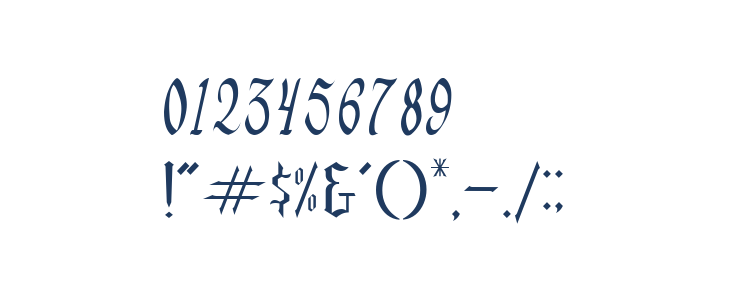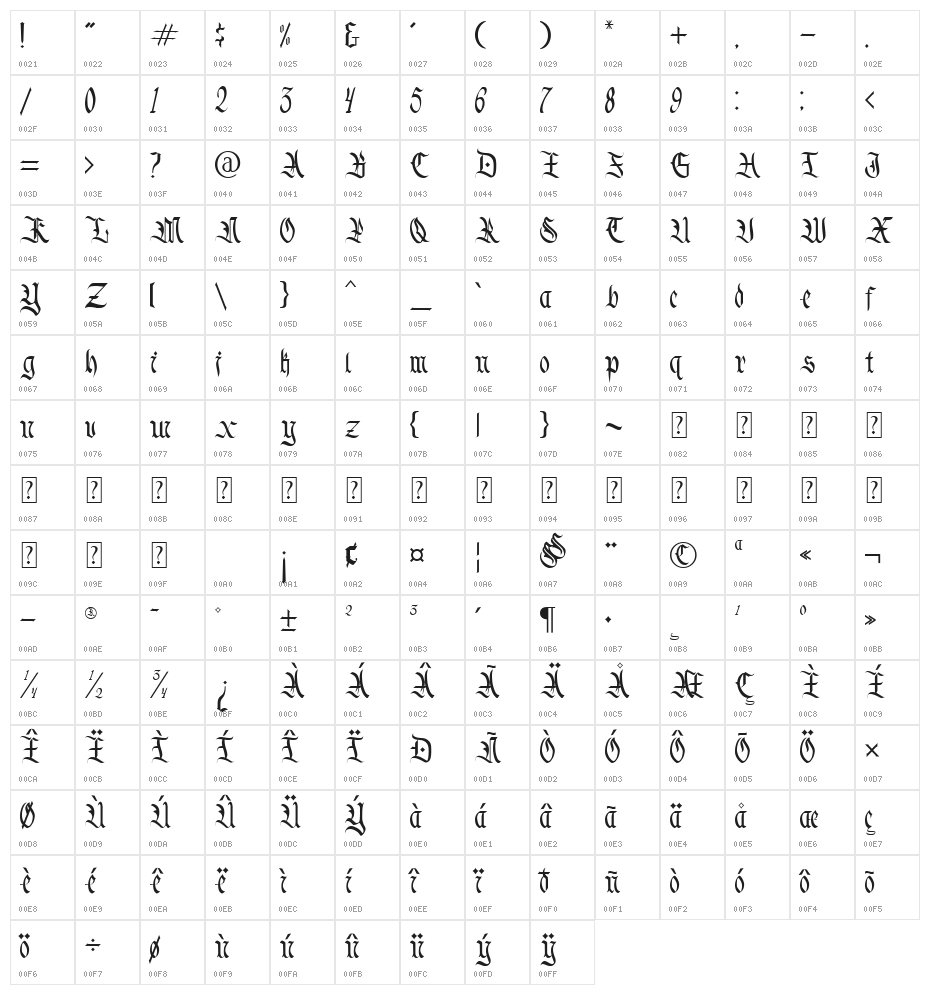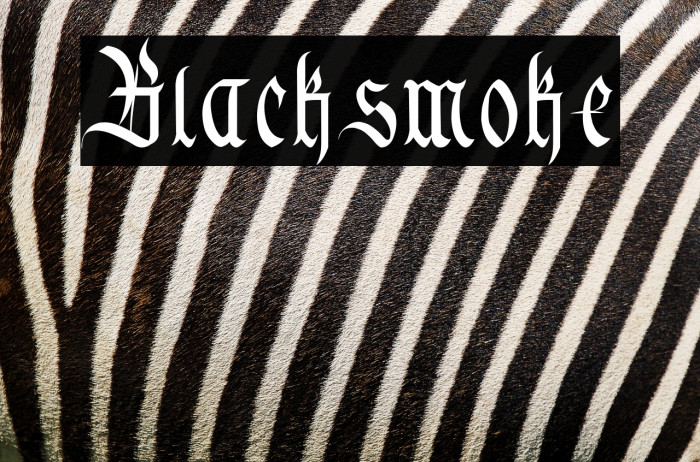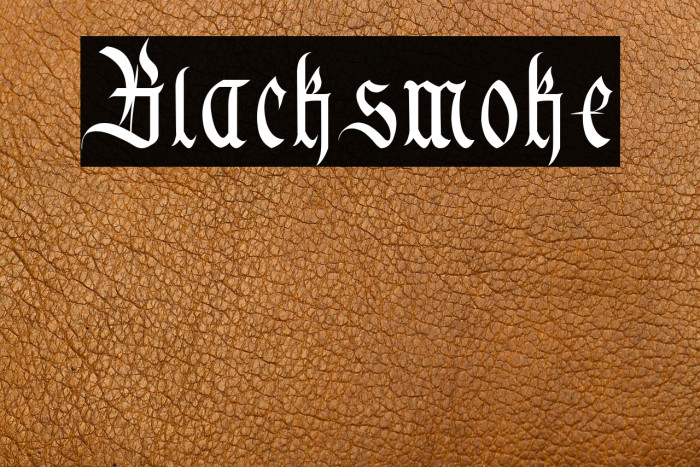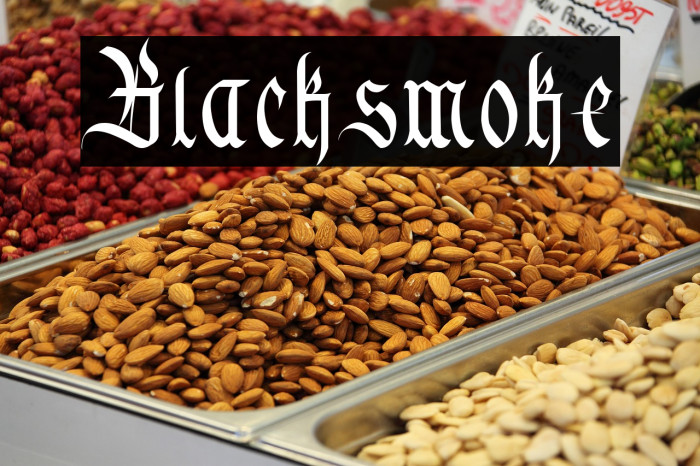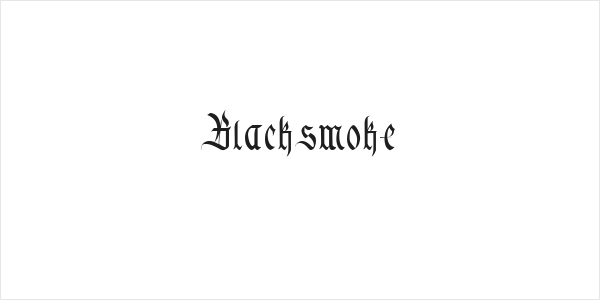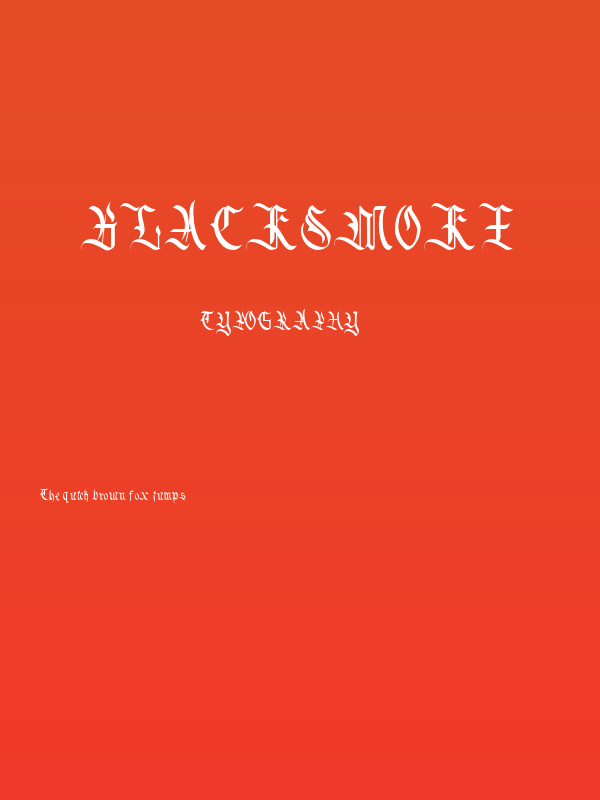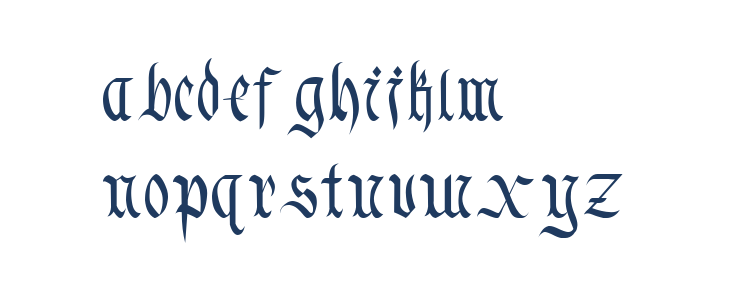
Blacksmoke Font
Blacksmoke Description
This font features a bold and dramatic style reminiscent of traditional Blackletter typefaces. It showcases intricate, angular strokes with sharp edges and a high level of detail, giving it a distinctive and authoritative appearance. The uppercase letters are particularly ornate, with elaborate flourishes that enhance their visual impact. The lowercase letters maintain a consistent style, offering a cohesive look across the alphabet. Numbers and special characters are designed with the same attention to detail, ensuring uniformity throughout the font. This font's historical and artistic qualities make it suitable for projects that require a touch of elegance and tradition.
| Use Case | Logos, Headlines, Decorative purposes |
| Proposed Projects | Ideal for certificates, invitations, branding for luxury products, or historical-themed designs. |